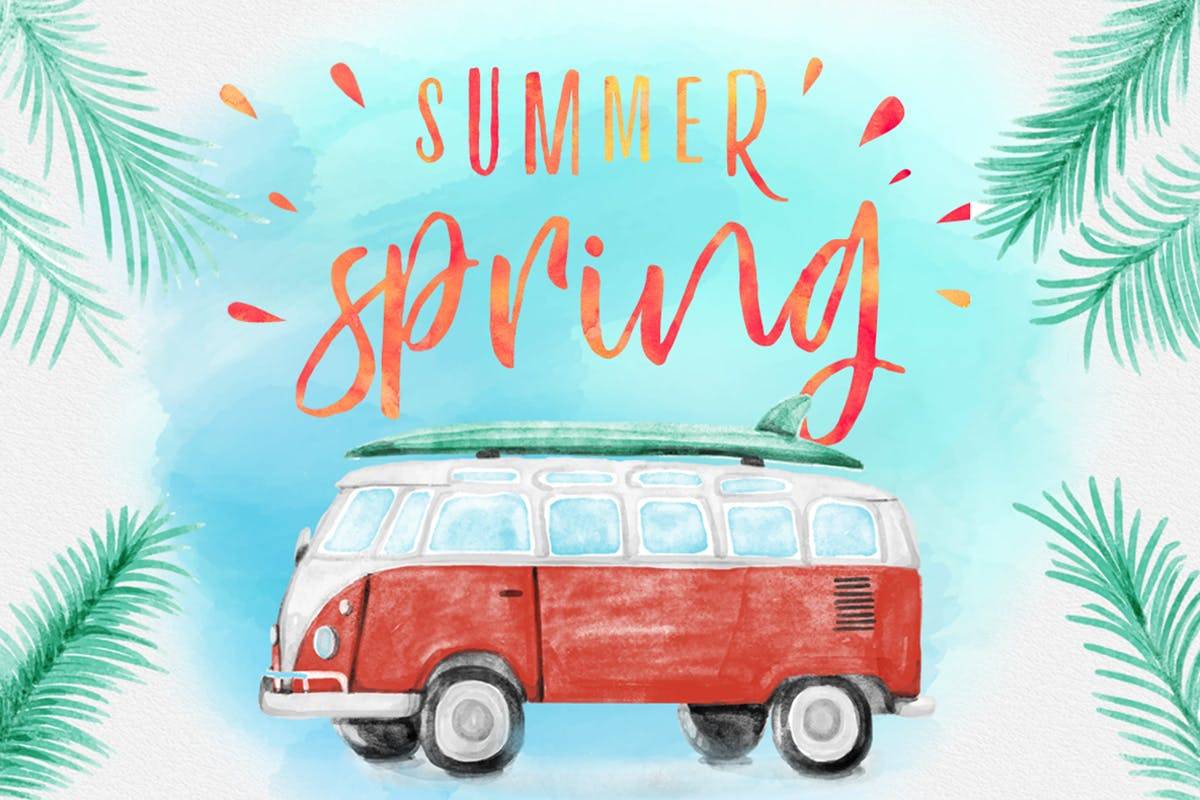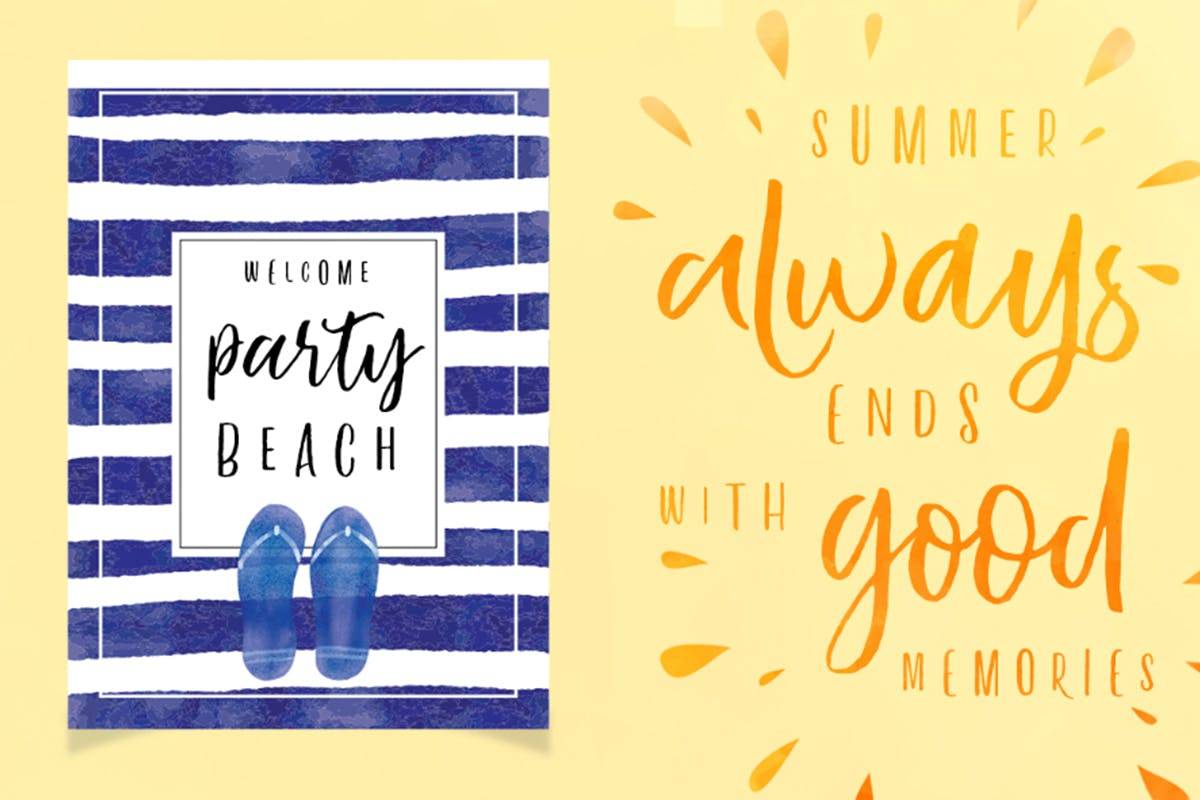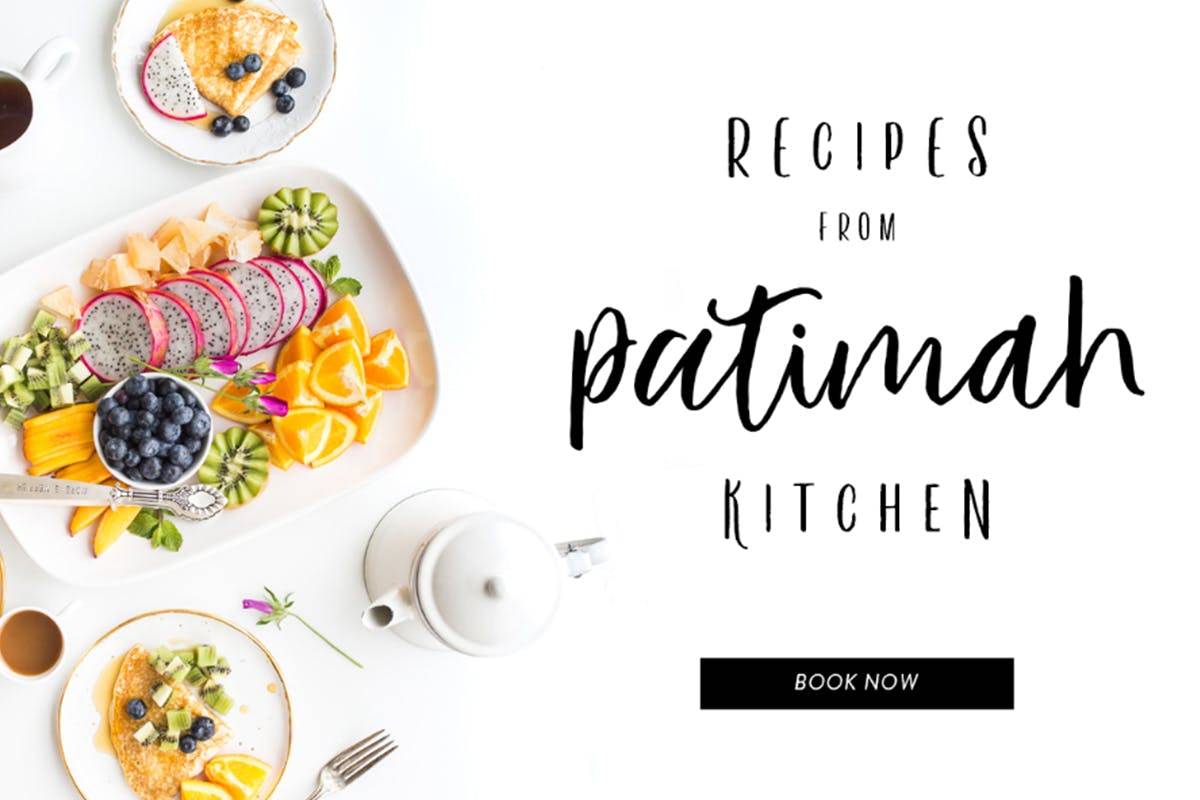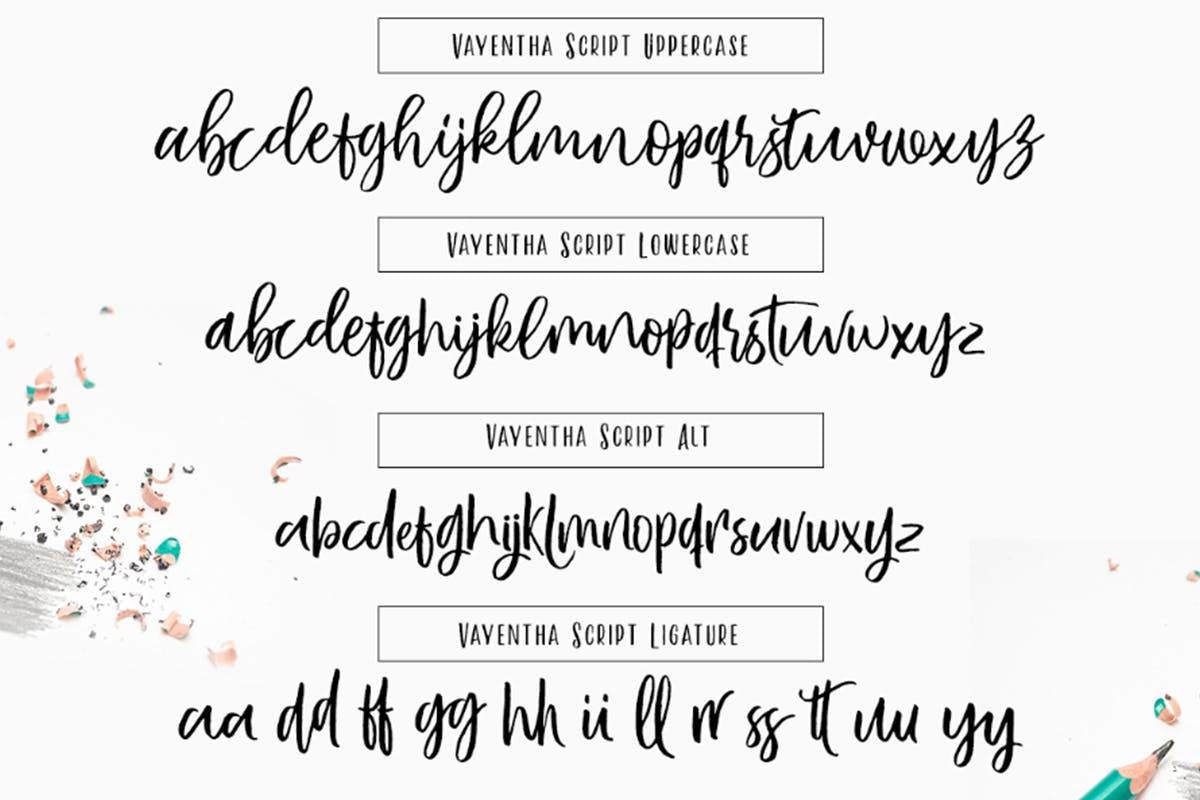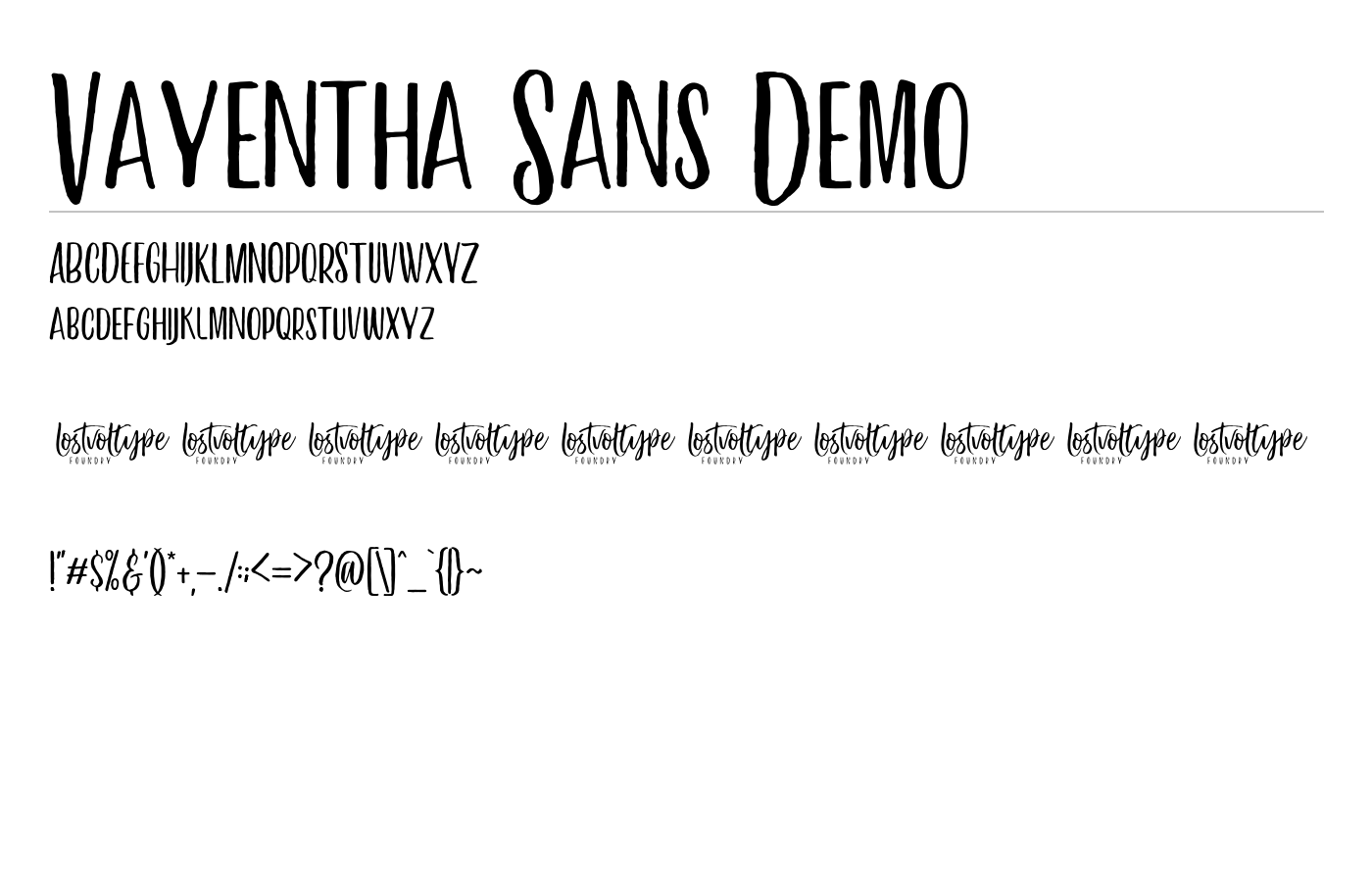
Vayentha Font Duo Demo is a playful and narrow sans serif font with a tall x-height and a hand-drawn, slightly irregular stroke style that adds a casual, friendly personality. Its unique tall letterforms and delicate curves make it ideal for creative headlines, branding, and design projects that want a personal, approachable feel. This font works well where a touch of individuality and charm is needed, such as invitations, trendy logos, or lifestyle blogs.
Vayentha Font Duo Demo
About Vayentha Font Duo Demo
| Font family | Vayentha Font Duo Demo |
| Designer | Lostvoltype Foundry |